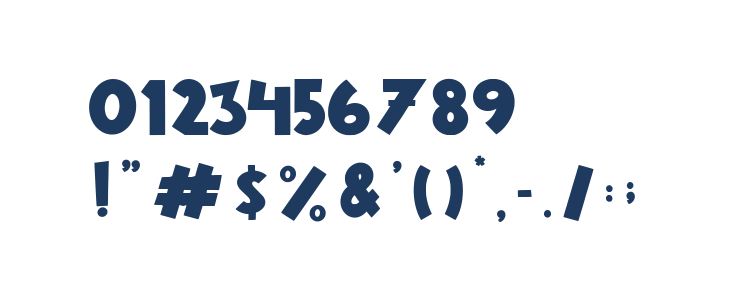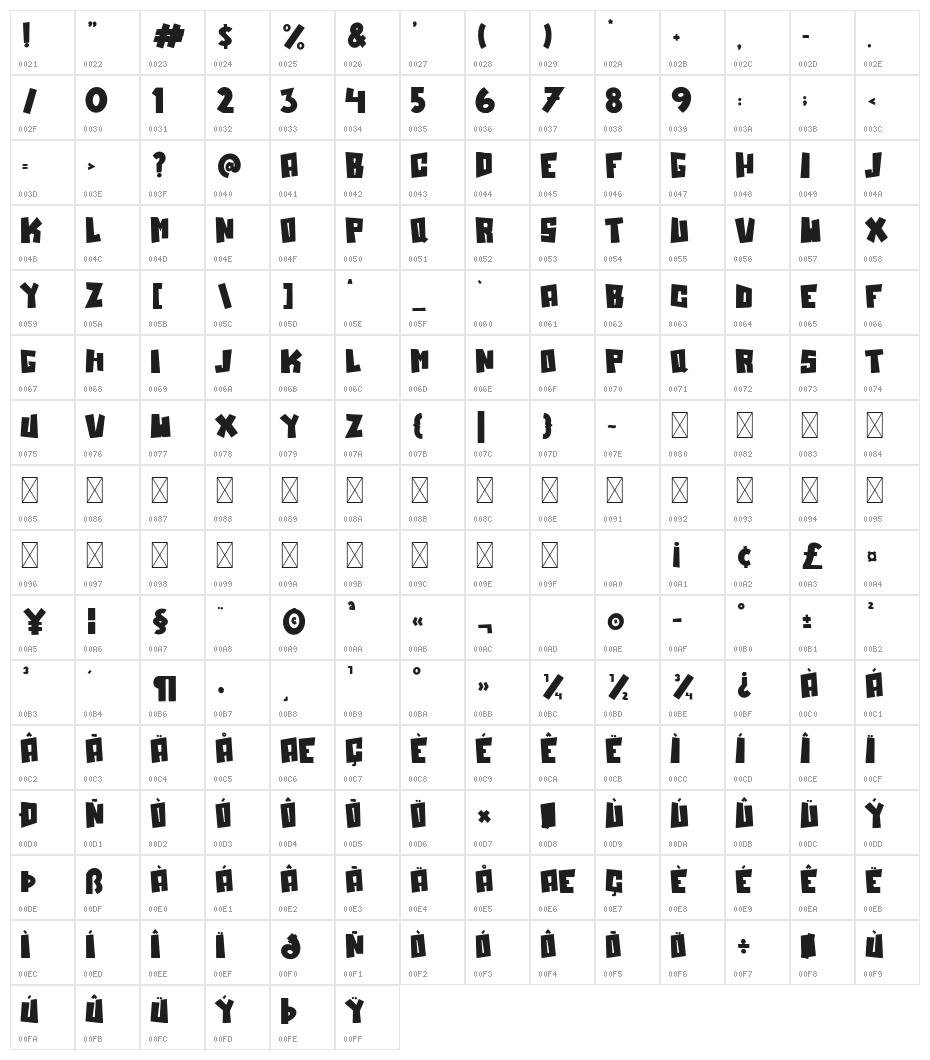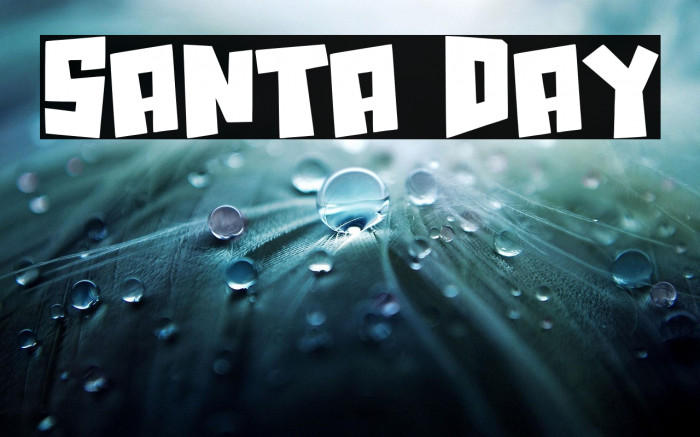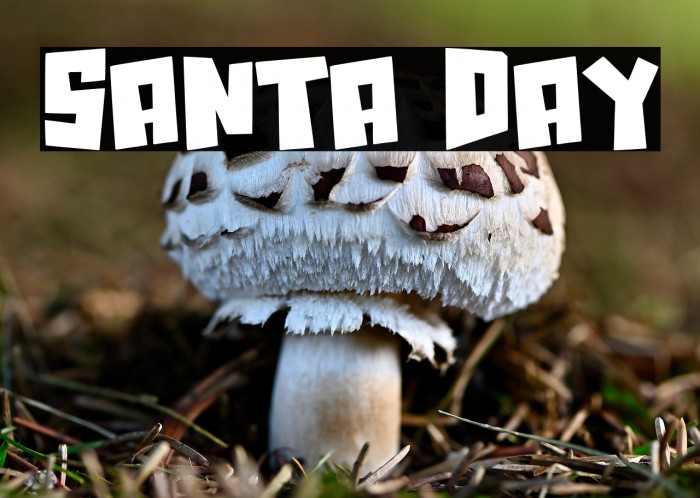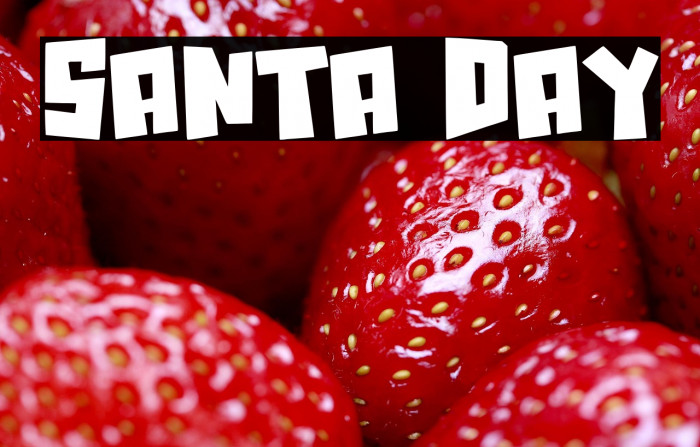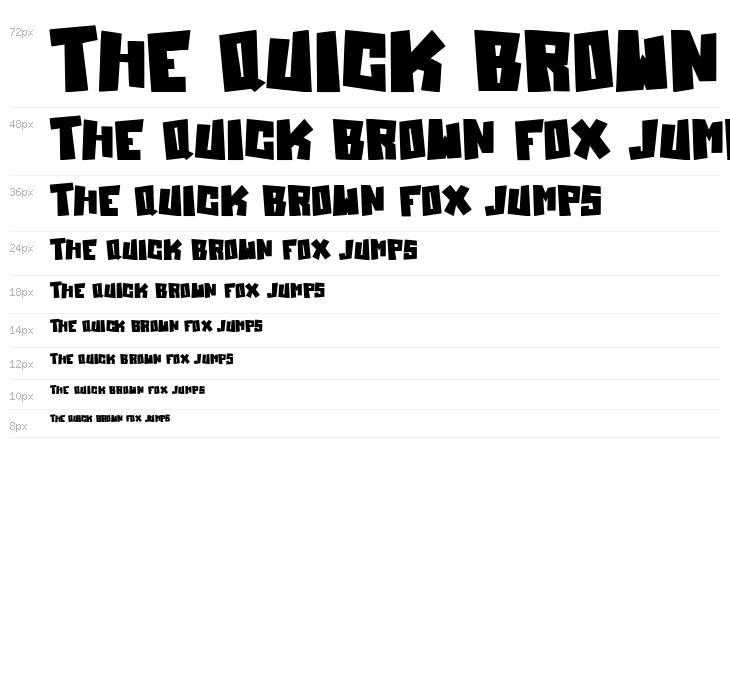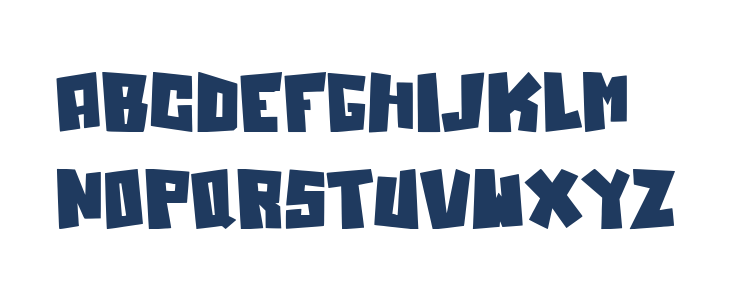
Santa Day Font
Santa Day Description
This font features a bold and playful design with a distinctly festive flair. The characters are heavily stylized with exaggerated angles and a chunky appearance, giving them a dynamic and energetic feel. The uppercase and lowercase letters maintain a consistent style, with each letter exhibiting unique quirks that add to the overall whimsical aesthetic. The numbers and special characters follow the same bold and lively design, making them perfect for attention-grabbing displays. The font's thick strokes and irregular shapes convey a sense of fun and creativity, ideal for holiday-themed projects or any design that requires a touch of cheerfulness.
| Proposed Projects | Ideal for holiday cards, festive banners, children's book covers, and playful branding. |